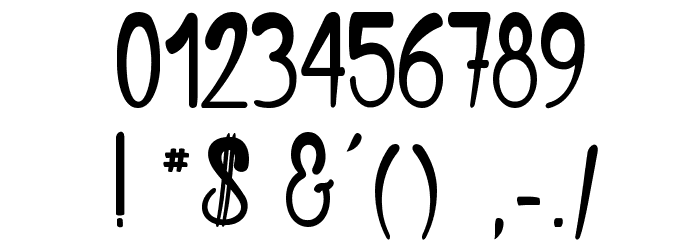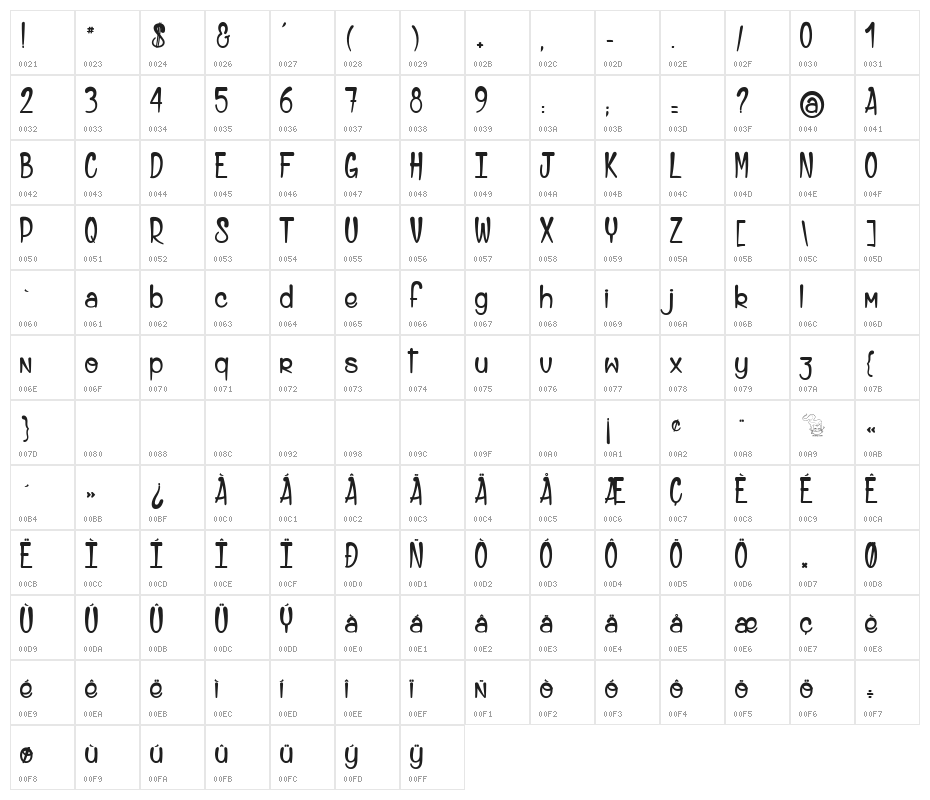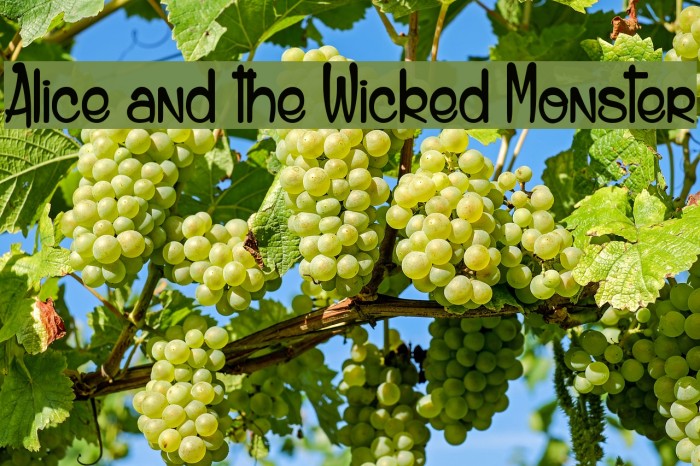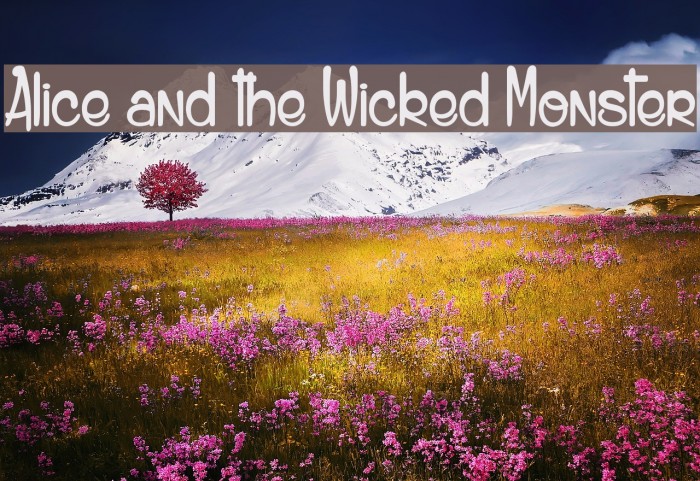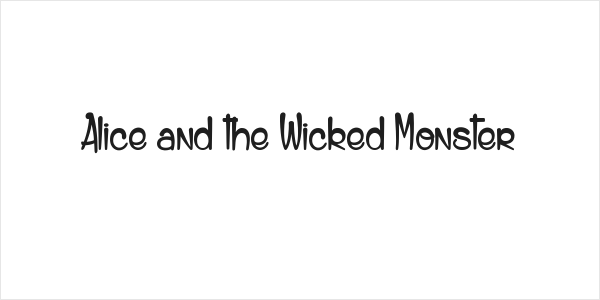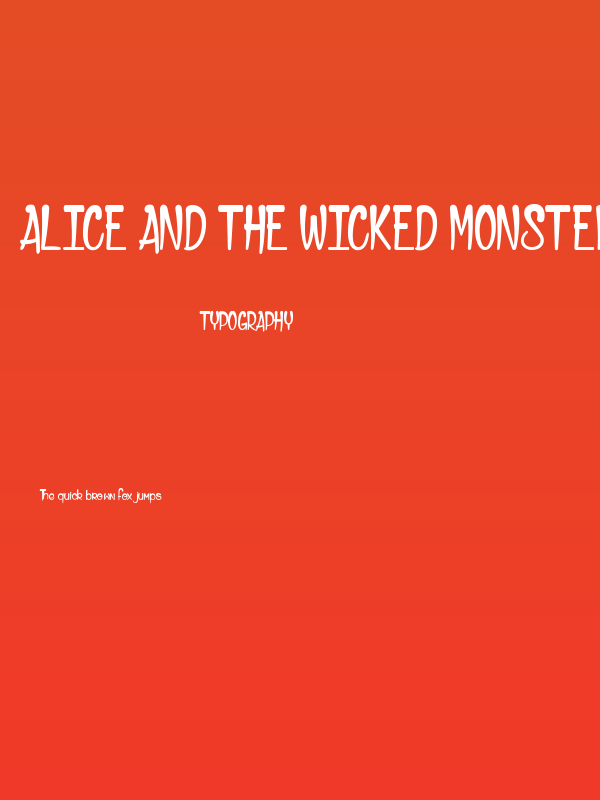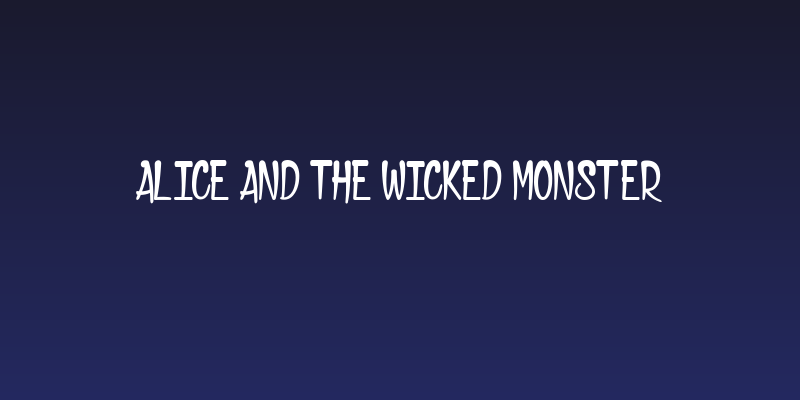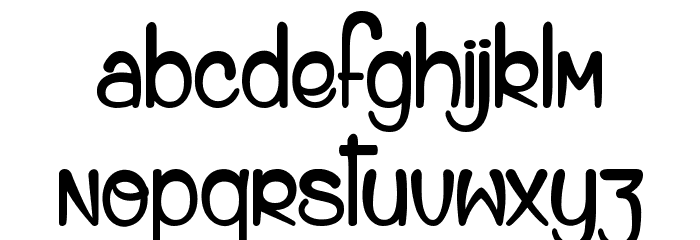
Alice and the Wicked Monster Font
Alice and the Wicked Monster Description
This playful and whimsical font features a hand-drawn style with a slightly irregular baseline, giving it a lively and dynamic appearance. The characters are bold and rounded, with a friendly and approachable feel. The uppercase letters are tall and slightly narrow, while the lowercase letters maintain a consistent height, adding to the font's quirky charm. The numerals are distinct and easy to read, matching the playful style of the alphabet. Special characters are included, maintaining the same energetic and fun aesthetic. This font is perfect for projects that require a touch of creativity and personality.